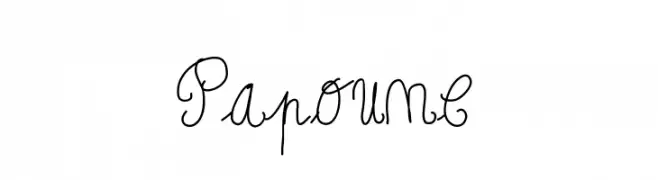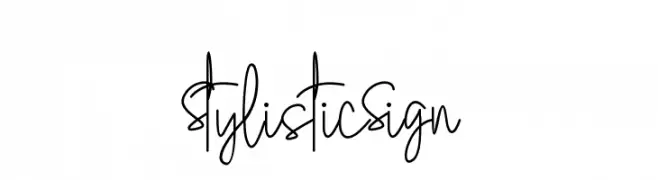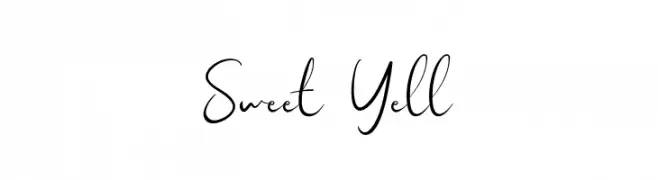
A bold, expressive script font with flowing, connected letterforms.
A bold, cursive font with interconnected characters and a classic yet modern script style.
A playful and casual handwritten font with fluid, connected strokes.
A playful and whimsical script font with flowing, interconnected letters.
A playful and elegant script font with fluid, connected strokes.
A flowing, artistic handwritten font with elegant, interconnected letterforms.
A graceful and flowing script font with elegant, interconnected characters.
A bold, artistic font with flowing, interconnected lines and a hand-drawn style.
A bold, cursive script font with elegant, flowing lines and connected characters.
A playful, handwritten cursive font with fluid, connected letters.